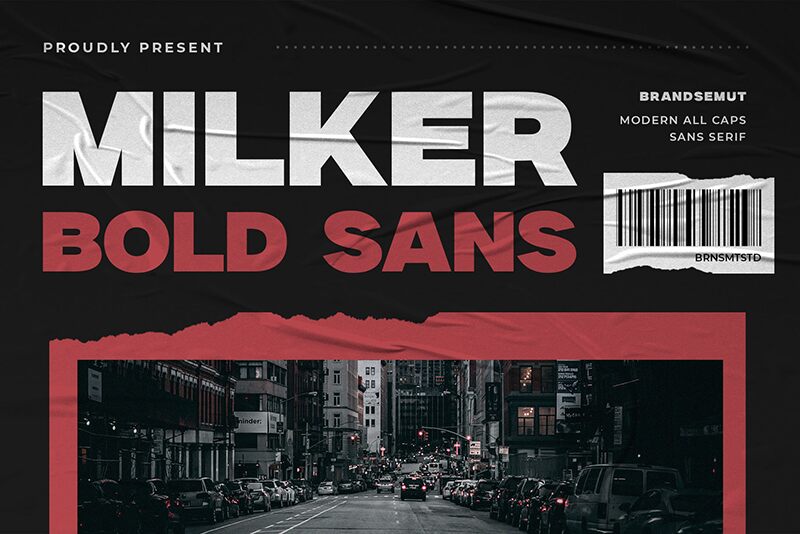
Milker
Milker is a bold, expansive sans serif font that commands attention. Designed by BrandSemut, this typeface exudes an authoritative presence with its well-defined shapes and unapologetic proportions.
The exaggerated width lends an air of confident, modern sophistication, making Milker an ideal choice for headlines, branding, and eye-catching displays. Its robust character could elevate the aesthetic of product packaging, editorial layouts, and digital interfaces alike.
Whether used for making a strong statement or injecting visual impact into a design, Milker's distinctive style is sure to captivate and leave a lasting impression.